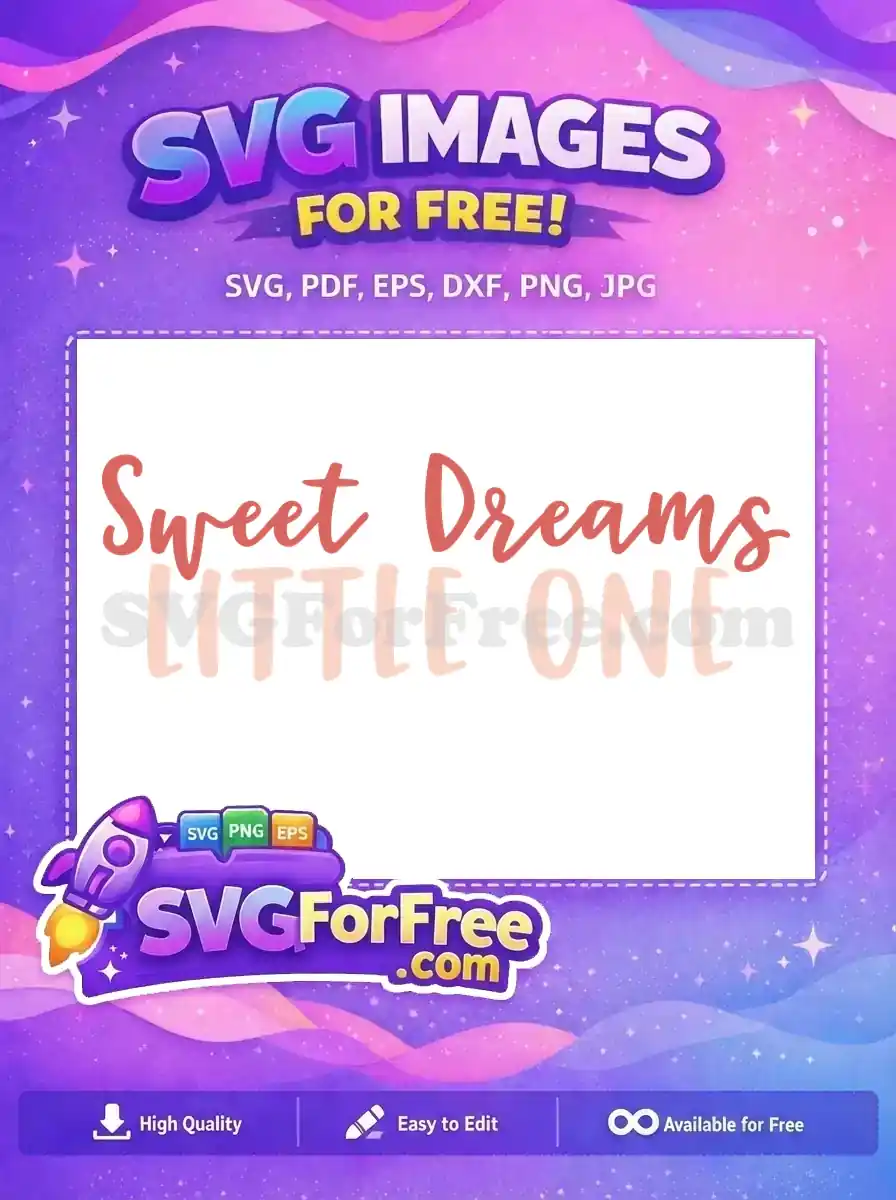
Free Script Font Free Sweet Dreams Little One Design Free SVG – Instant Download
A sweet, no-cost nursery design that says ‘Sweet Dreams Little One’ in a gentle, dreamy font style.
Free Script Font Free Sweet Dreams Little One Design Free SVG